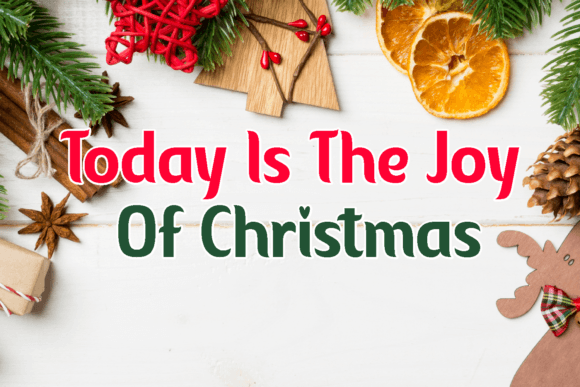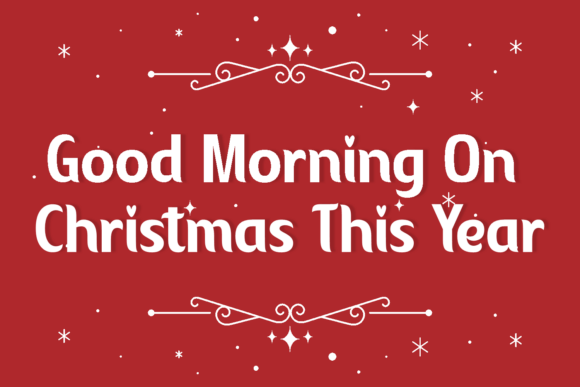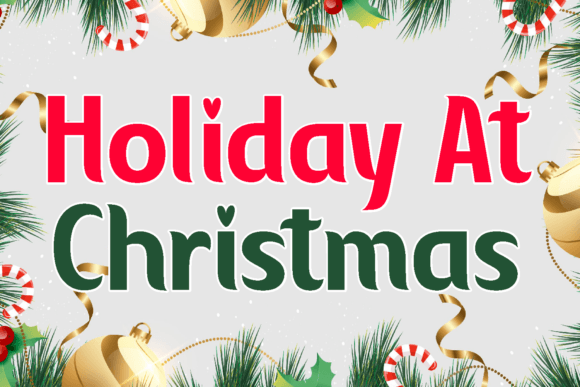
Introduction to Christmas Positive Font
As a designer, there’s nothing quite like the rush of excitement that comes with a new creative project. You’re brainstorming ideas, sketching out concepts, and searching for the perfect design resource to bring your vision to life. And what’s more magical than the holiday season? For many of us, Christmas is a time of joy, giving, and festive cheer – and the perfect font can be the key to capturing that spirit.
That’s where the Christmas Positive Font comes in – a stunning display font that embodies the essence of yuletide celebrations. With its elegant, minimalist design and bold strokes, this font is sure to add a touch of holiday magic to any project. And the best part? It’s available for free download, complete with a transparent background for seamless integration into your design.
Key Features of Christmas Positive Font
- High-quality, vector-based font design, ideal for creative projects requiring precision and clarity.
- Includes a transparent background, allowing for easy layering and customization in various design applications.
- Features a bold, festive design perfect for Christmas-themed projects, adding a touch of holiday cheer to any creative endeavor.
- Size: Includes multiple font sizes and styles, making it easy to find the perfect fit for your design project.
Honest Review: Christmas Positive Font
I recently had the chance to experiment with the Christmas Positive Font, and I must say it’s a delightful addition to any design project. ✨ Its cheerful and playful style is perfect for creating eye-catching graphics, social media posts, or even holiday-themed print materials.
Here are some of the key features I like about the Christmas Positive Font:
- Fun and festive design
- Perfect for holiday-themed projects
While I love the overall design, there are a few limitations to keep in mind:
- Only available in a limited number of font weights
- May not be suitable for formal or professional projects
Overall, I’m impressed with the Christmas Positive Font. It’s a great resource for designers looking to add some holiday cheer to their projects. With a little creativity, it can be used in a wide range of design scenarios.
How to Use Christmas Positive Font
The Christmas Positive Font is a unique and high-quality design resource perfect for adding a touch of festive cheer to your creative project. With a transparent background and elegant design, this font is ideal for holiday-themed designs, invitations, and social media posts.
Tips for Getting the Most Out of the Christmas Positive Font
For the best results, use the font in combination with other festive design elements, such as holly, snowflakes, or Christmas trees. Experiment with different font sizes and colors to create a unique and eye-catching design.
The Christmas Positive Font is perfect for:
- Holiday invitations and greeting cards
- Christmas-themed social media posts and ads
- Festive blog posts and articles
- Christmas party decorations and signage
Alternatives to Christmas Positive Font
Great Vibes Font is a fun and creative script font perfect for a variety of design projects, including Christmas cards, posters, and social media graphics. Its transparent background and high quality make it a great resource for designers.
Use Great Vibes Font for a playful and energetic feel in your creative project. It’s a great alternative to Christmas Positive Font when you need a more casual and relaxed tone.
Compared to Christmas Positive Font, Great Vibes Font has a more relaxed and casual feel, making it perfect for a more laid-back design project.
Is the Christmas Positive Font suitable for large-scale printing or signage?
Yes, the Christmas Positive Font is designed to be highly legible and scalable, making it perfect for large-scale printing or signage. The font’s high-quality design ensures that it will remain clear and readable even at very large sizes, making it an excellent choice for outdoor signage, billboards, or other large-format printing applications.